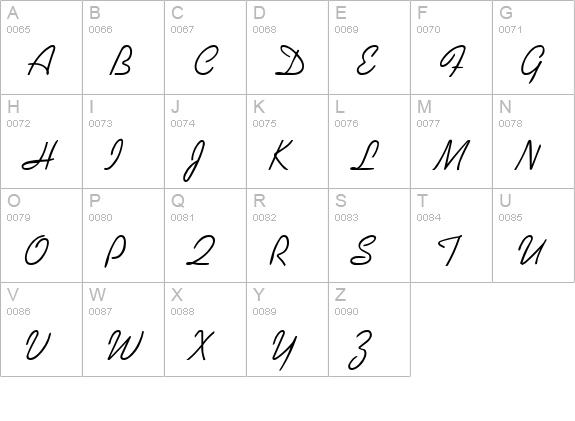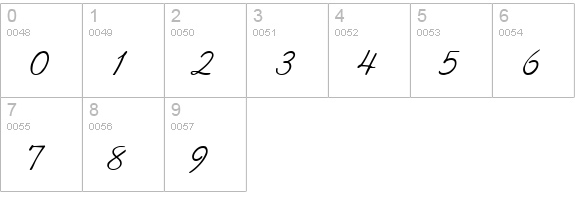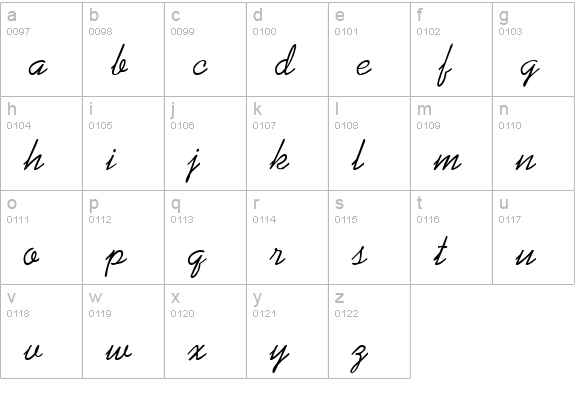
Koffee Regular is the standard, neutral variant in the Koffee typeface family \xE2\x80\x94 well suited to general body text, paragraphs, and standard typographic work.
Koffee Regular font is a versatile and stylish typeface that adds a touch of sophistication to any design project. With its sleek lines and modern aesthetic, this font is perfect for use in a wide range of applications, from branding and advertising to web design and print materials. What sets Koffee Regular font apart is not only its elegant design, but also the fact that it is completely free to download. That's right - you can access this high-quality font at no cost on FontsMarket.com. Whether you're a professional designer looking to add a new font to your collection or a hobbyist wanting to experiment with different typography styles, Koffee Regular font is the perfect choice. Download it today and elevate your projects with this stunning typeface.